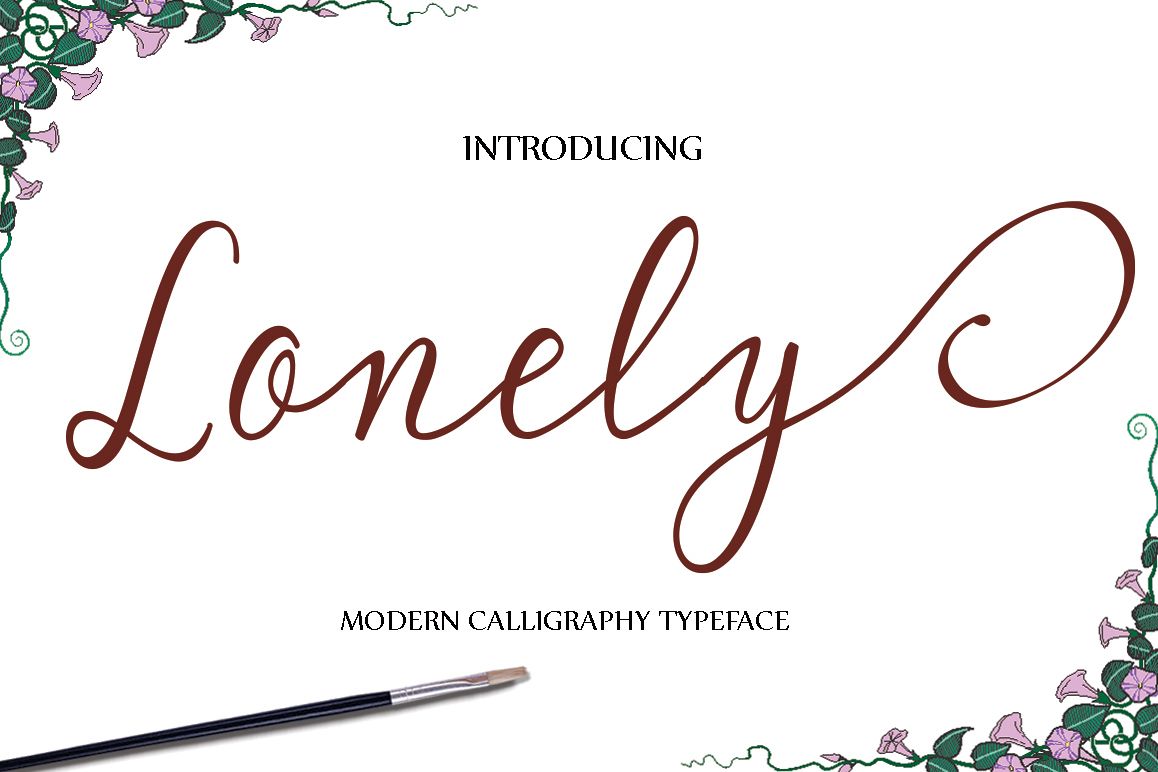
Lonely
Lonely.
LONELY Modern Calligraphy. This font was designed by handwriting, and it has a modern and unique forms of calligraphy, the writing style is very natural.
The Features of this fonts is;
Standart ligatures
Stylistic Alternates
Contextual Alternates